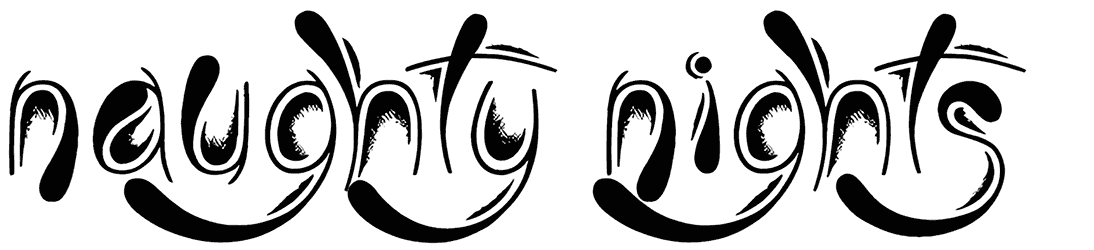
Naughty Nights Font
Naughty Nights font is the first thing that shows the playful nature of letters. In a short time, you will be able to design and finish postcards, scrapbooks, and many t-shirts for females using this girly and fancy font with characters that look like splashing water drops.
With its creative cursive design, this handwritten font quickly captures attention. Moreover, this decorative font is also embellished with smooth curved edges and a handcrafted style with no need for uppercase letters.